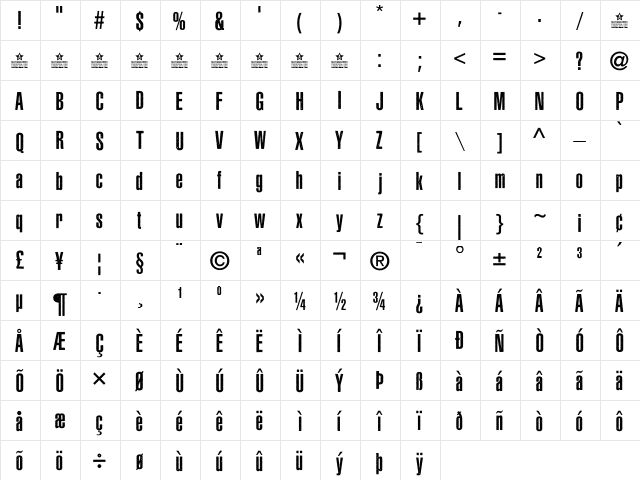
ASPHALTIC GRAIN CONDENSED PERSO Bold Font Preview
| Foundry | BILLY ARGEL |
| Designer | BILLY ARGEL |
Design Context for ASPHALTIC GRAIN CONDENSED PERSO Typeface
ASPHALTIC GRAIN CONDENSED PERSO takes a measured approach to typography — its balanced proportions and neutral character make it a reliable workhorse for both digital and print work. Its bold stroke weight gives it real presence on the page. The condensed width makes it efficient for tight spaces without sacrificing legibility.